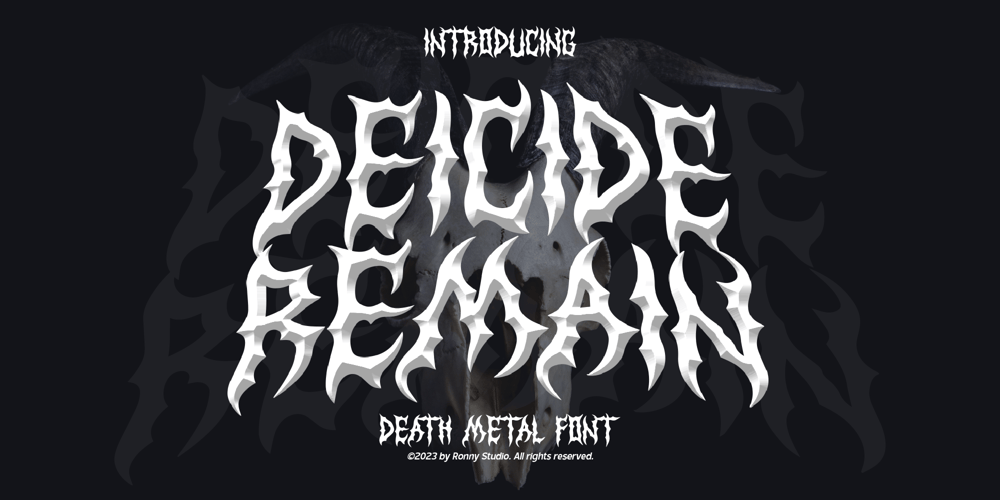
Deicide Remain Font Family was designed by Rony Rizki Jaya and published by Ronny Studio. Deicide Remain contains 2 styles and family package options. Deicide Remain Font is a cool alternative for you to easily create your Underground band logo or whatever. Using alternative fonts and ornaments will liven up the font and will look cooler and fiercer. It comes with a basic character set and a small group of symbols and signs frequently used in the extreme music sector – Death- and Blackmetal classics such as pentagram drops, roots, wings and more.Features :- All Caps- numbers & punctuation- Alternate & Ligature- Multilingual- Symbol Ornament- PUA encodedPlease contact us if you have any questions. Enjoy Crafting and thanks for supporting us! :)Thank you